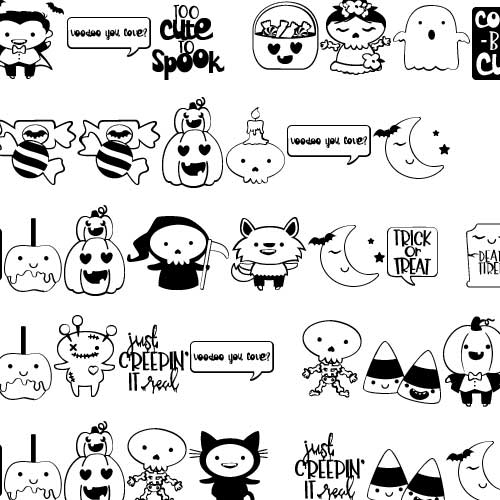
DB Creepy Cute Life - Too - DB
This adorable doodlebat font features 26 cute Halloween themed characters,imagery and phrases. Perfect for Halloween, classrooms, parties, gifts,decor, planner stickers, scrabbook pages and more!